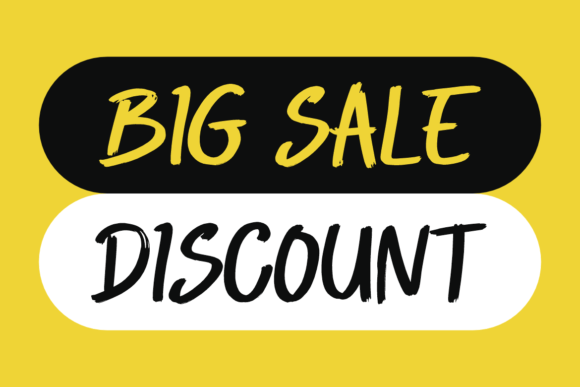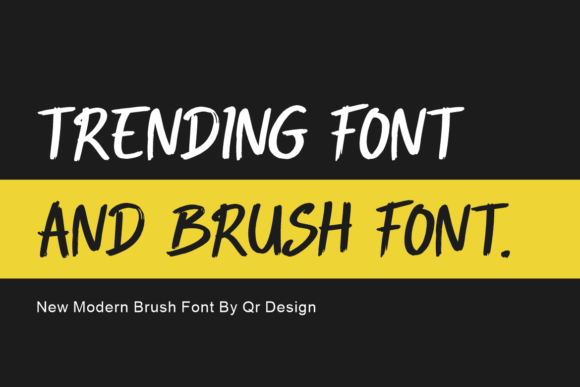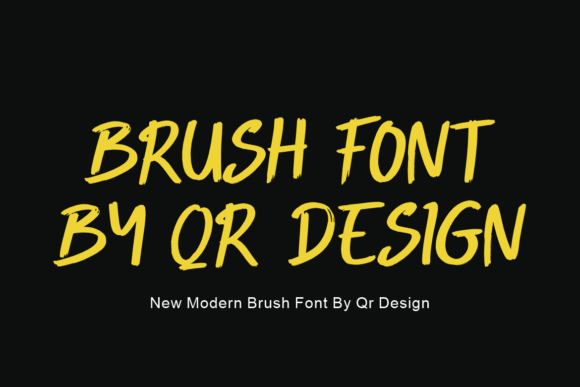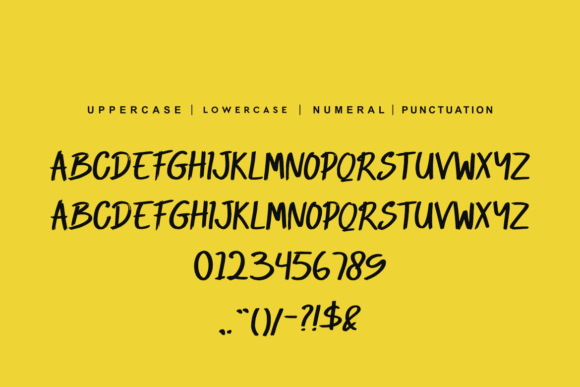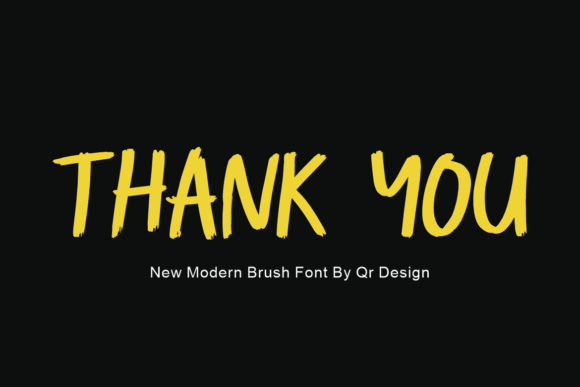
The Ultimate Display Font: A Deep Dive into Chrosir
I’ll never forget the moment I stumbled upon Chrosir while working on a branding project for a gaming client. I was on a tight deadline, and my usual go-to fonts just weren’t cutting it. The design needed something bold, something authentic, and something that would make it stand out in a crowded market. That’s when I discovered Chrosir, a display font that has since become a staple in my design toolkit.
An Honest Review of Chrosir
- ✨ Bold and Authentic: Chrosir has a unique, rugged feel that’s perfect for creating a strong brand identity.
- ✅ Versatile: This font can be used for a wide range of projects, from logos and t-shirt printing to e-sports and more.
- 🔥 Attention-Grabbing: Chrosir is designed to make a statement, and it does just that. Its bold design ensures that your text won’t go unnoticed.
While Chrosir is an excellent font, it’s not without its quirks. For example:
- ⚠️ Legibility at Small Sizes: Chrosir is best used at larger font sizes. At smaller sizes, it can become a bit difficult to read.
- 🤔 Limited Use in Body Text: Due to its bold design, Chrosir is not ideal for body text. It’s best used for headings, titles, or short phrases.
The Backstory of Chrosir
Chrosir was designed with the modern designer in mind. Its creator wanted to craft a font that was both bold and authentic, with a unique personality that would make it stand out in a crowded market. The result is a font that’s perfect for creating striking brand identities, eye-catching headlines, and memorable designs.
Q: What is Chrosir best used for?
A: Chrosir is best used for branding projects, logos, t-shirt printing, e-sports, and other designs where a bold, authentic font is needed.
Q: Can I use Chrosir for body text?
A: While Chrosir can be used for short paragraphs, it’s not ideal for body text due to its bold design. It’s best used for headings, titles, or short phrases.